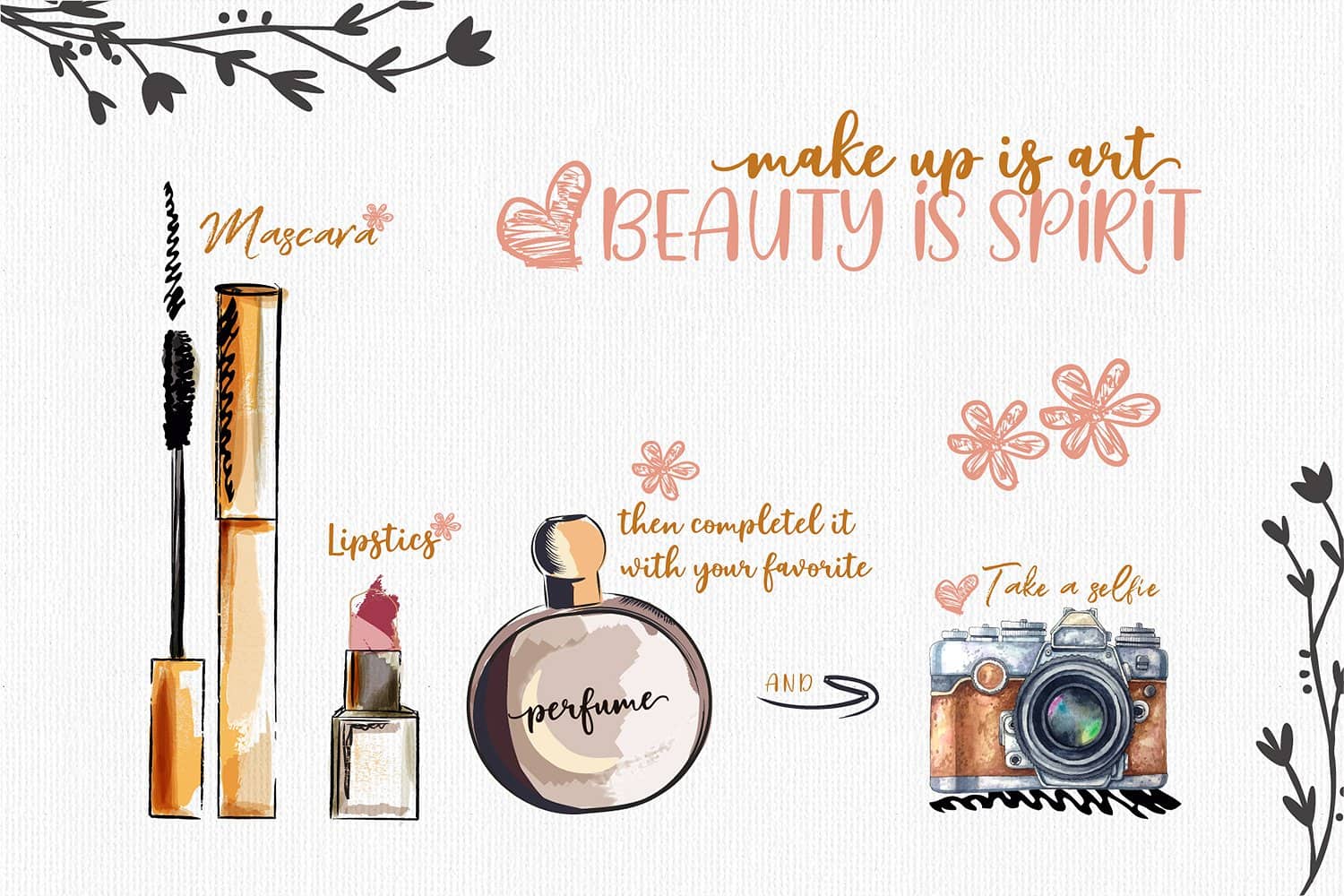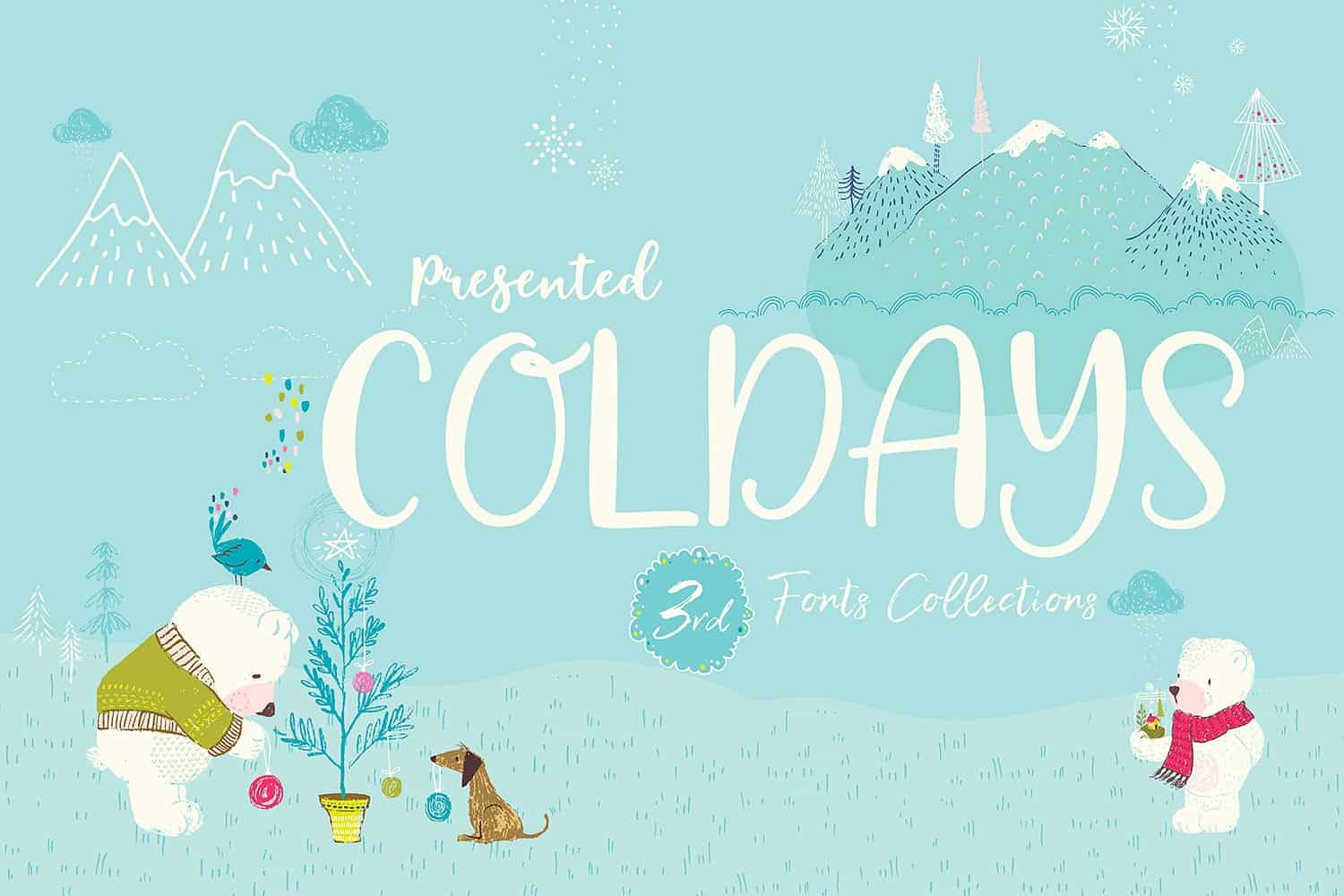
Coldays Font
Coldays Font falls into the category of brush typefaces. This is also similar to the Wasatch font and is available for free download. Together with business enterprise commercial enterprise company emblems and metal fabricated lettering. That is a similarly cute and precise kind in sans serif typeface family.
The style of this font is very new and stylish. The font’s characters are very beautiful, This font has a very peaceful effect and its design is very simple and attractive. The font family has uppercase letters, Numbers, Symbols, and some useful characters also. It has Both TTF and OTF features.
Usage You may use this font in all the painting works and pinnacle-notch elegant works which might be very vital to you. It is a good font for Gift Cards, Birthday Cards, Storybooks, and many stuff like that. This will be very effective in designing children’s toy boxes and Gift Cards. You can also use it in your own brands like if you have a gift brand or a toy shop then with the help of this font you can create a very attractive brand logo or have it made by a designer.
This fun font is very beautiful and very useful for Logo designs and Printing design projects. The designer of this glamorous font is “177BC”. Can I generate Coldays Font? The generator tool is the very best platform for font creation you can generate any type of font quickly with the help of this tool.